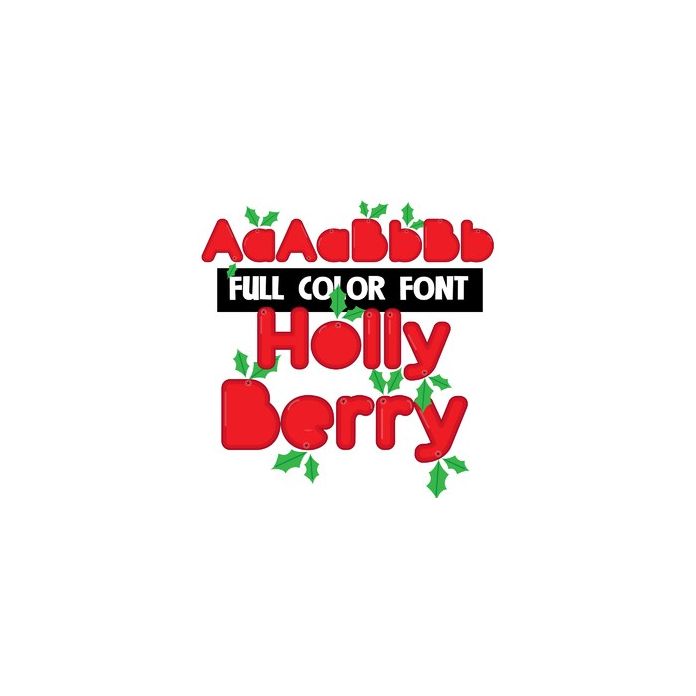
This full-color font features red, berry lettering and holly leaves. There is an alt case of additional lettering you can access through your system's glyph map.